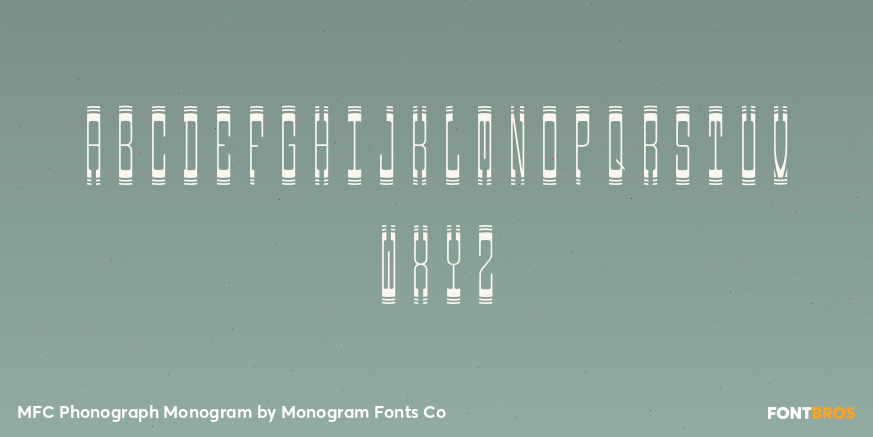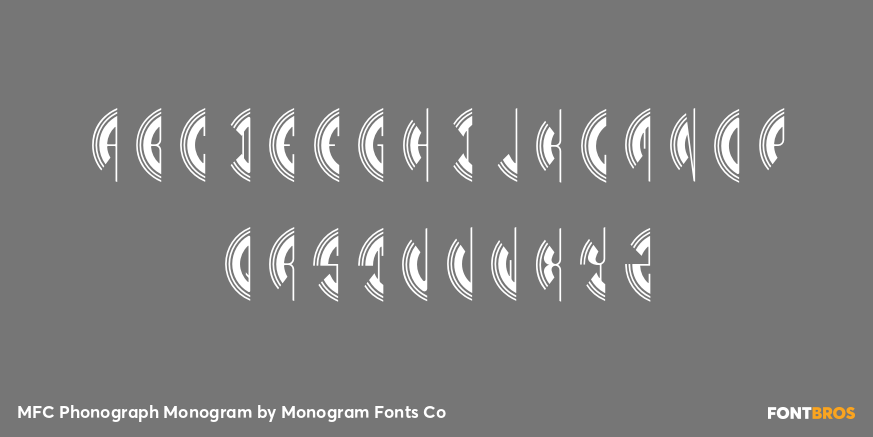
MFC Phonograph Monogram
The inspiration source for MFC Phonograph Monogram is a vintage monogram specimen named ?Kent? showing only a CBA sample. It was a style I could find no other reference for, but was desperate to recreate this record like styling of monogram. Finally, it all comes to life in MFC Phonograph Monogram. I even threw in a little dog and phonograph icons hidden in the font as decorative icons reminicent of old Victrola records. Phonograph Monogram supports two and three letter monograms, although the two letter style break from the circular record design and creates a zulu style shield design. MFC Phonograph Monogram uses the Ligatures feature, available in most OpenType savvy applications, such as Adobe Illustrator CS (see Fig. 1). The Ligatures feature is typically enabled automatically, but you may need to confirm this in your program if you are not certain. If any second lowercase letter typed does not automatically switch to form the right side of the rounded form, you do not have Ligatures enabled.